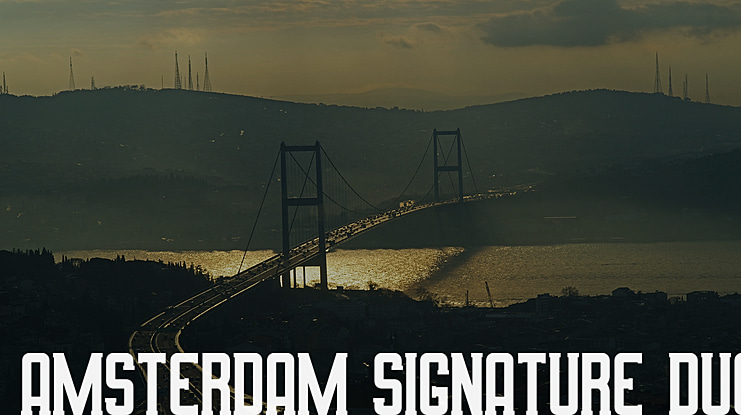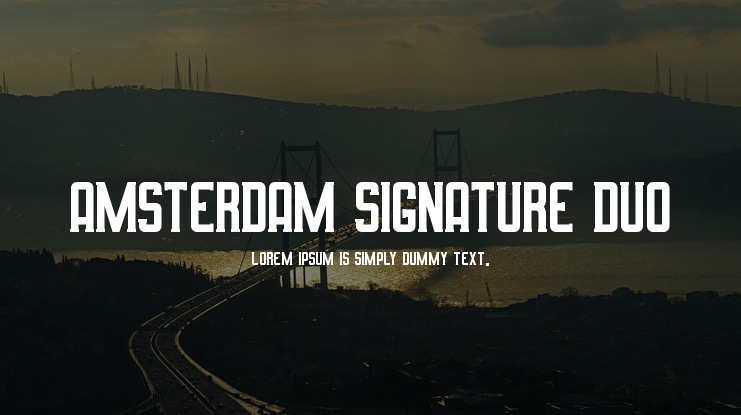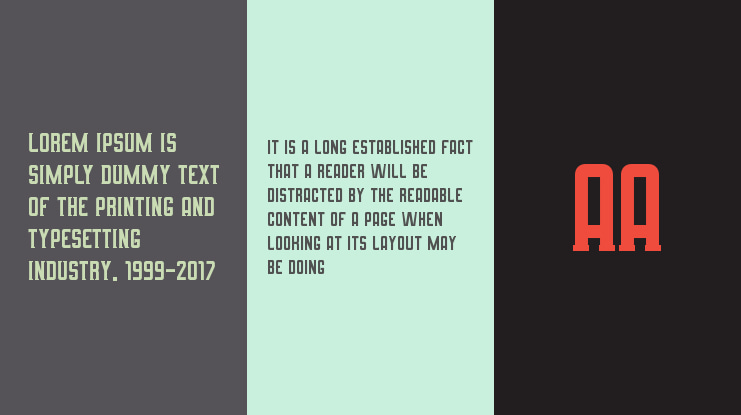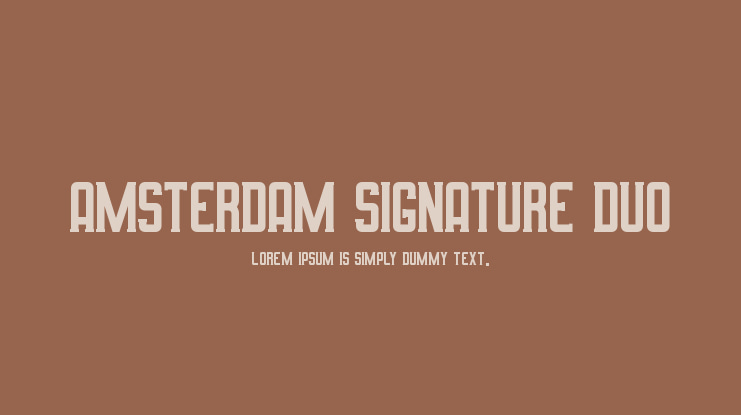
Amsterdam Signature Duo Font Family
Amsterdam Signature Font Duo, Display & Script Typefont. A collection of letters and numbers suitable your projects also great for Logotype, Branding Design, Logo Design, Digital Lettering Arts, T-Shirt/Apparel, Poster, Magazine, Signs, Advertising Design, and any design needs.